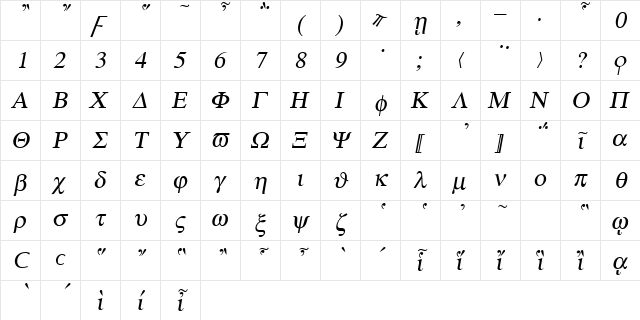
Atene Italic
Design Context for Atene Typeface
Atene is a composed and adaptable typeface that performs quietly and consistently across a wide range of design contexts. The dynamic lean of this cut emphasises speed and emphasis in any layout.
Pro Tip: Use Atene for emphasis, pull quotes, and subheadings where its slanted energy can add rhythm to the layout.